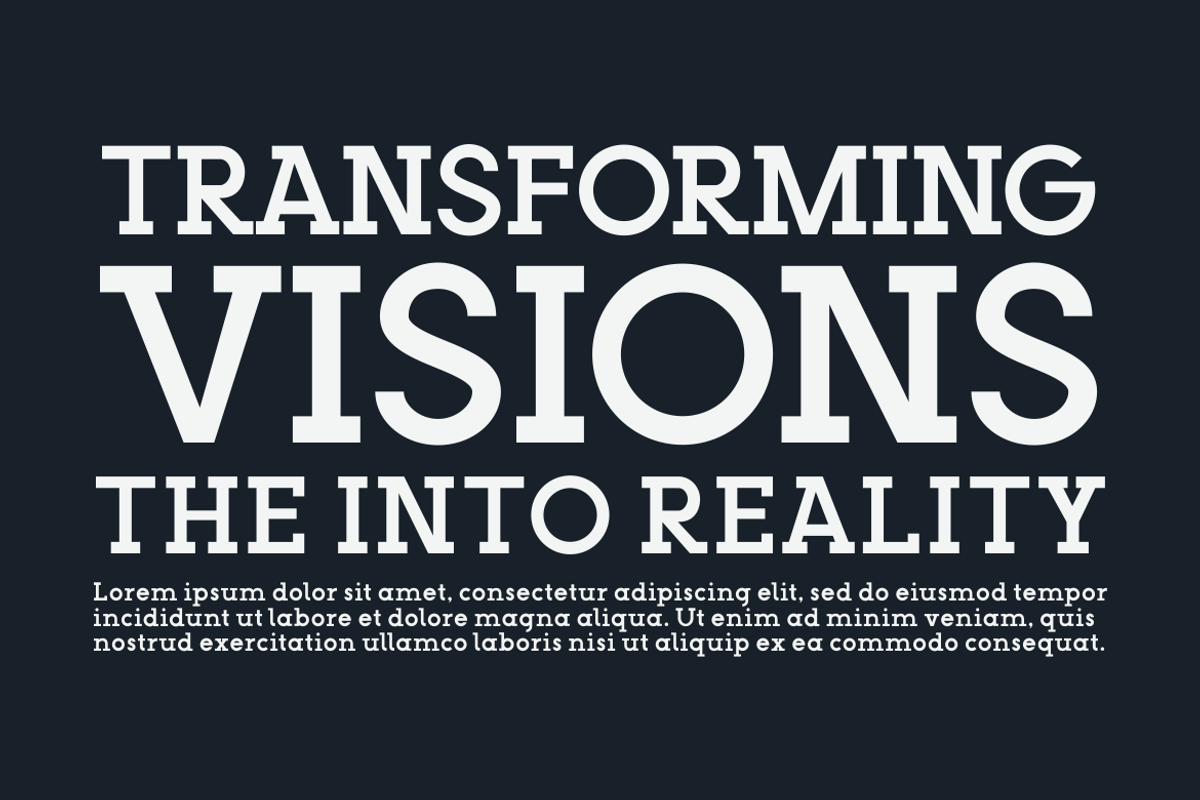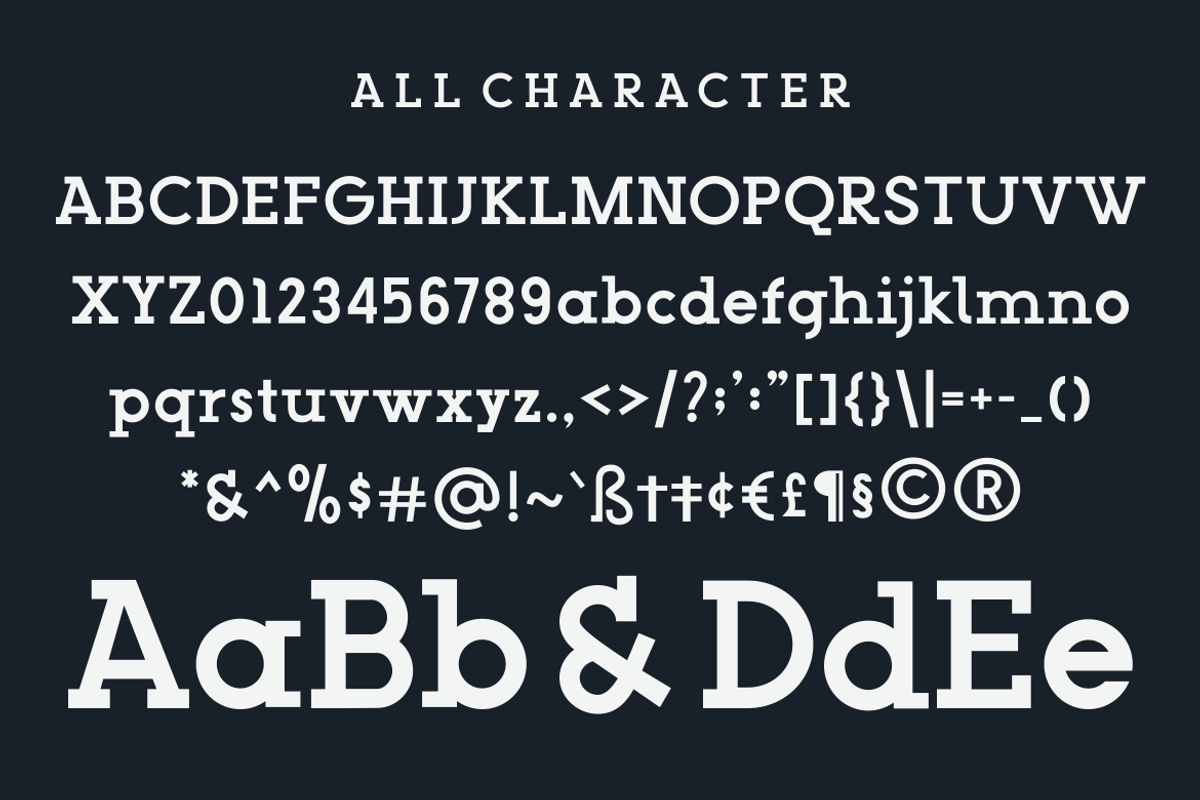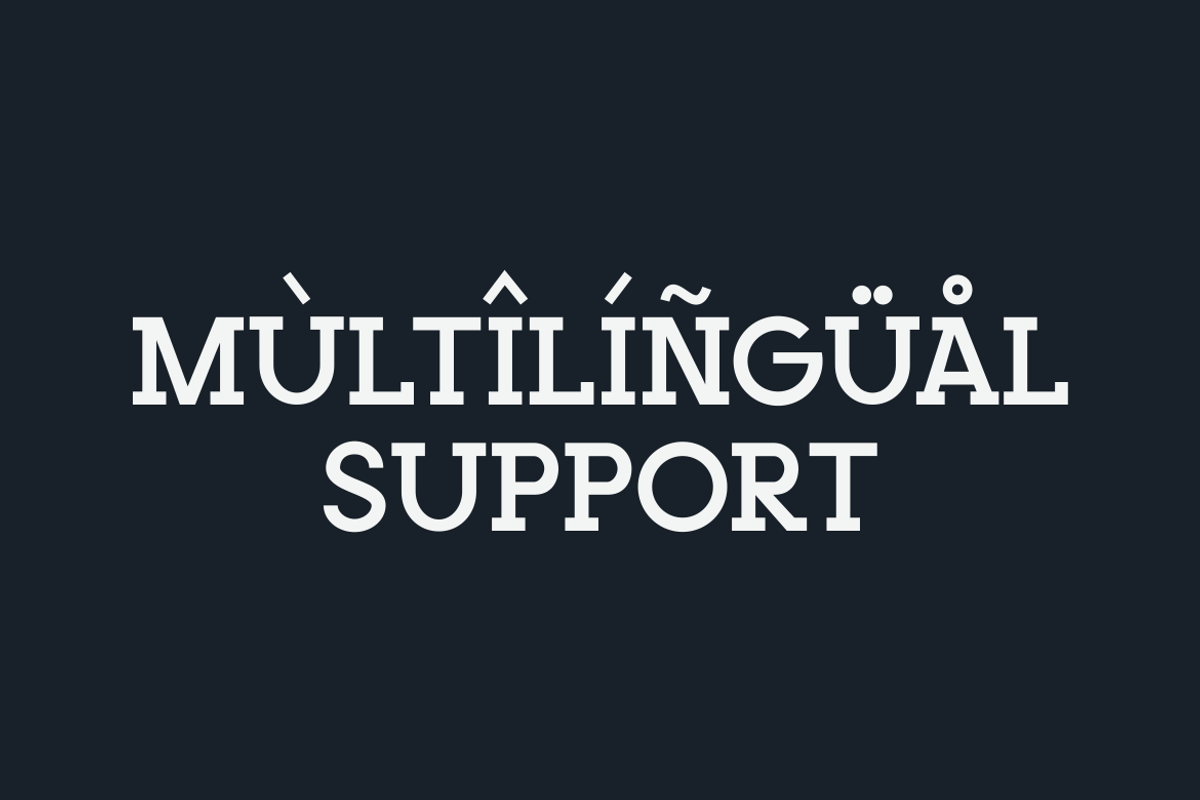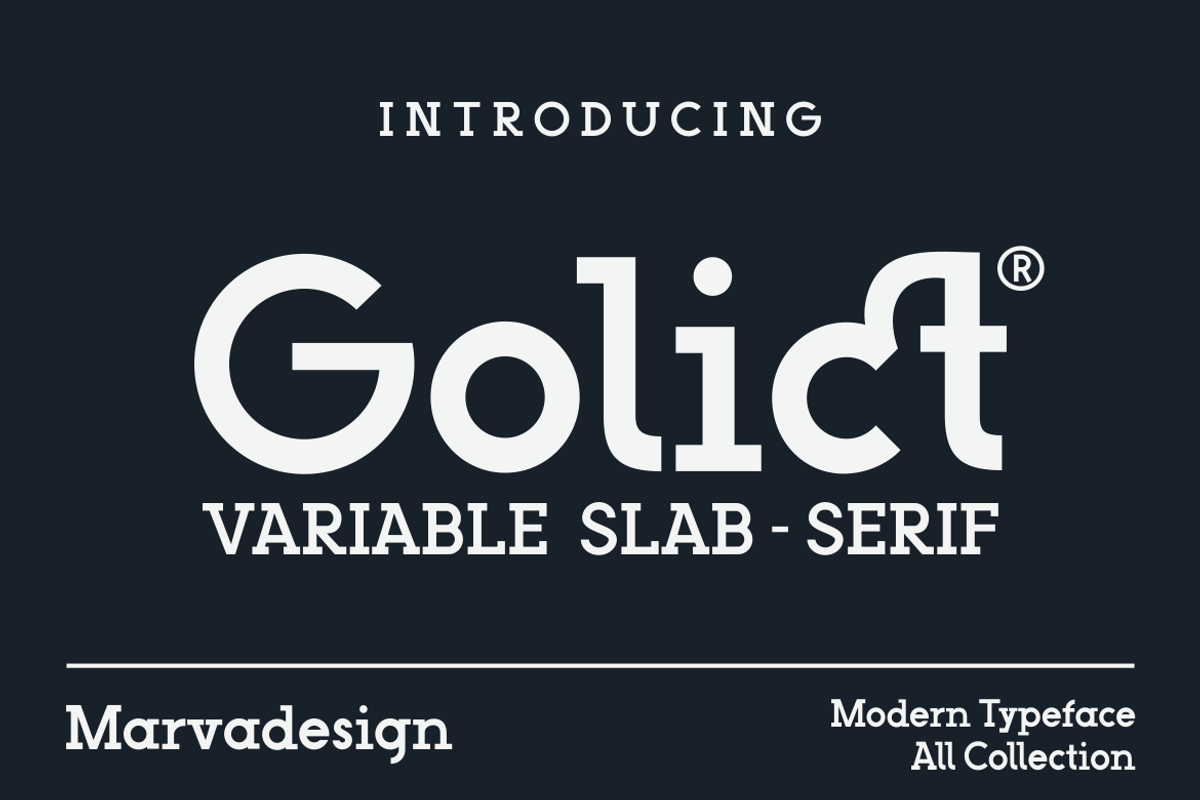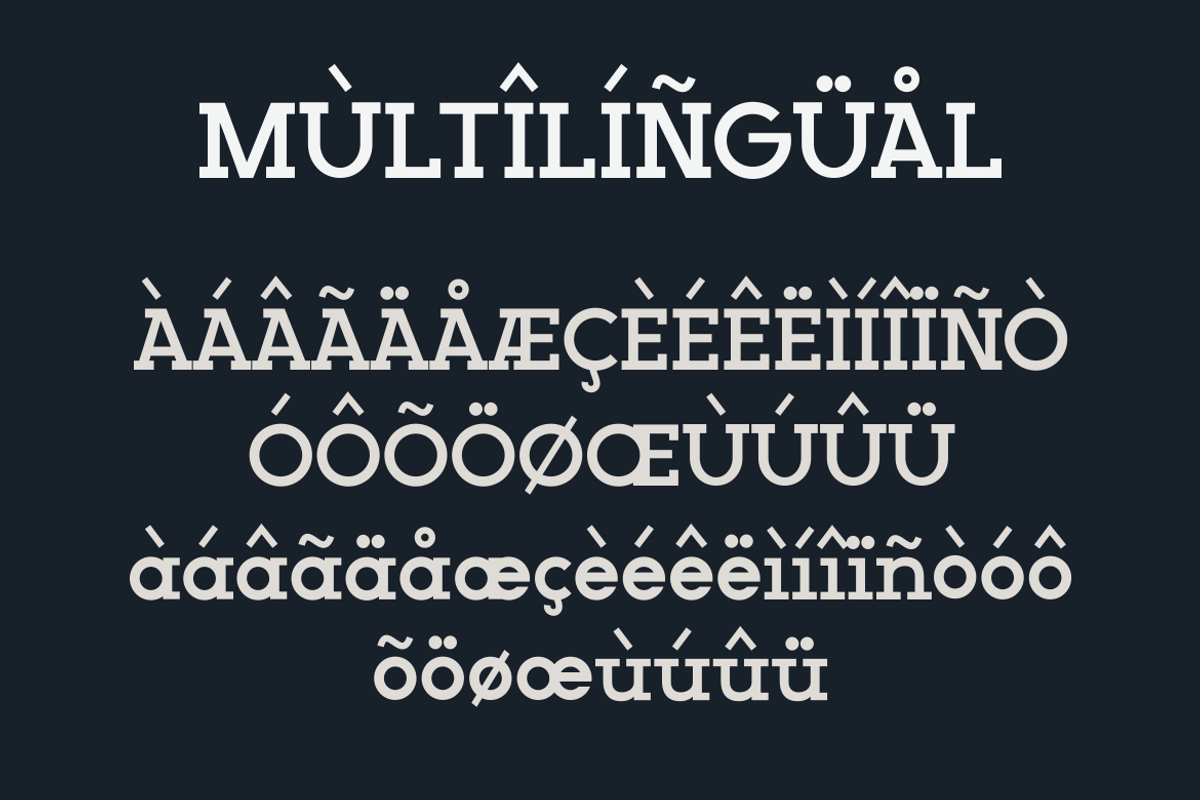
Golict - A Modern Slab Serif Font
Introducing our new product Golict Font - Modern Font GolictFont** - Modern Font is a bold and authentic display font. The font is suitable for any branding project like logo, Template Design, Product and many more. outstanding in a wide range of contexts.